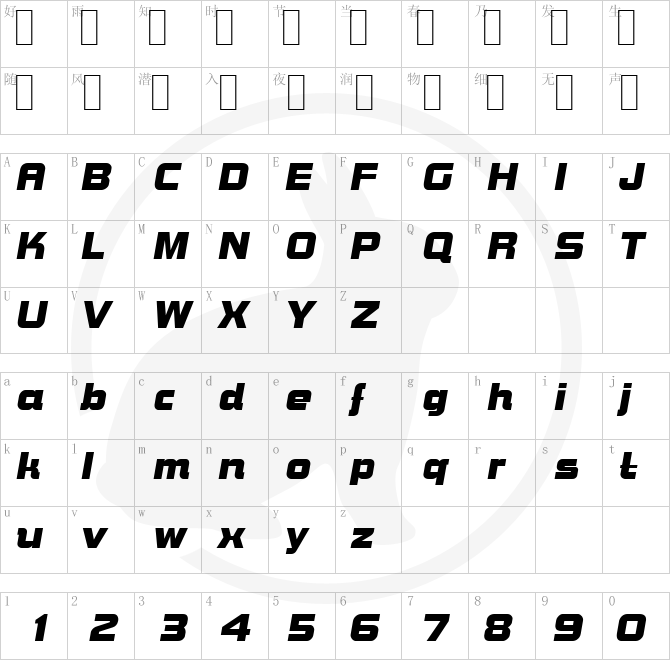
B790-Deco-Italic.ttf is a very beautiful artistic font, B790-Deco-Italic.ttf is widely used in the design and printing of various books and pictures,B790-Deco-Italic.ttf has a strong visual impact,B790-Deco-Italic.ttf is a commonly used font in newspapers, magazines and books, and is used in posters, e-commerce Poster design, store design, logo design, font design and other fields.B790-Deco-Italic.